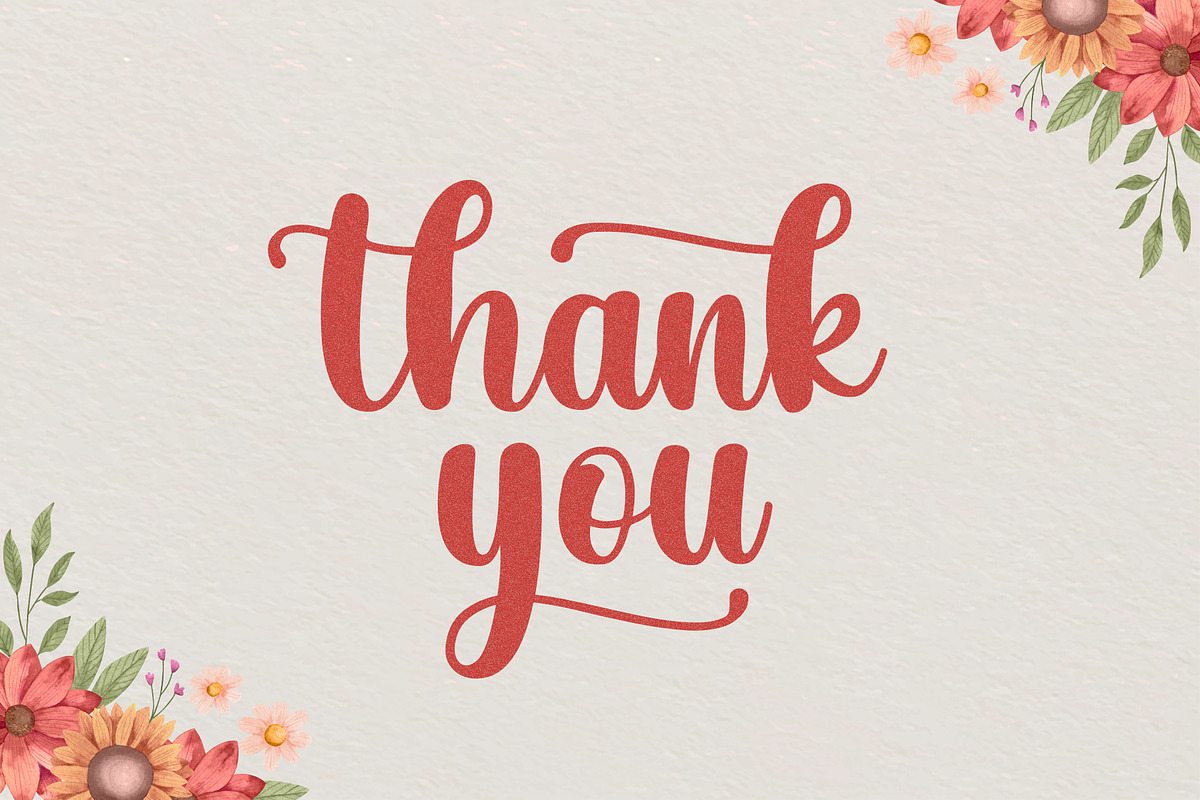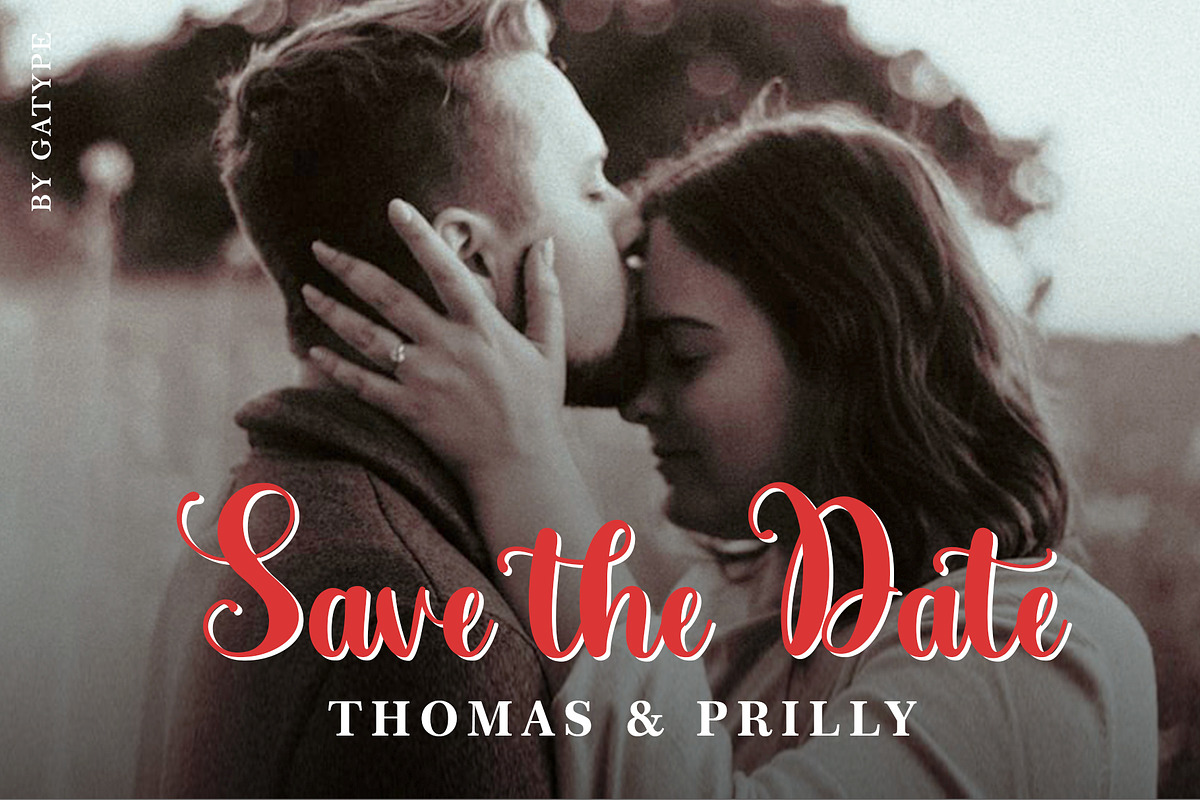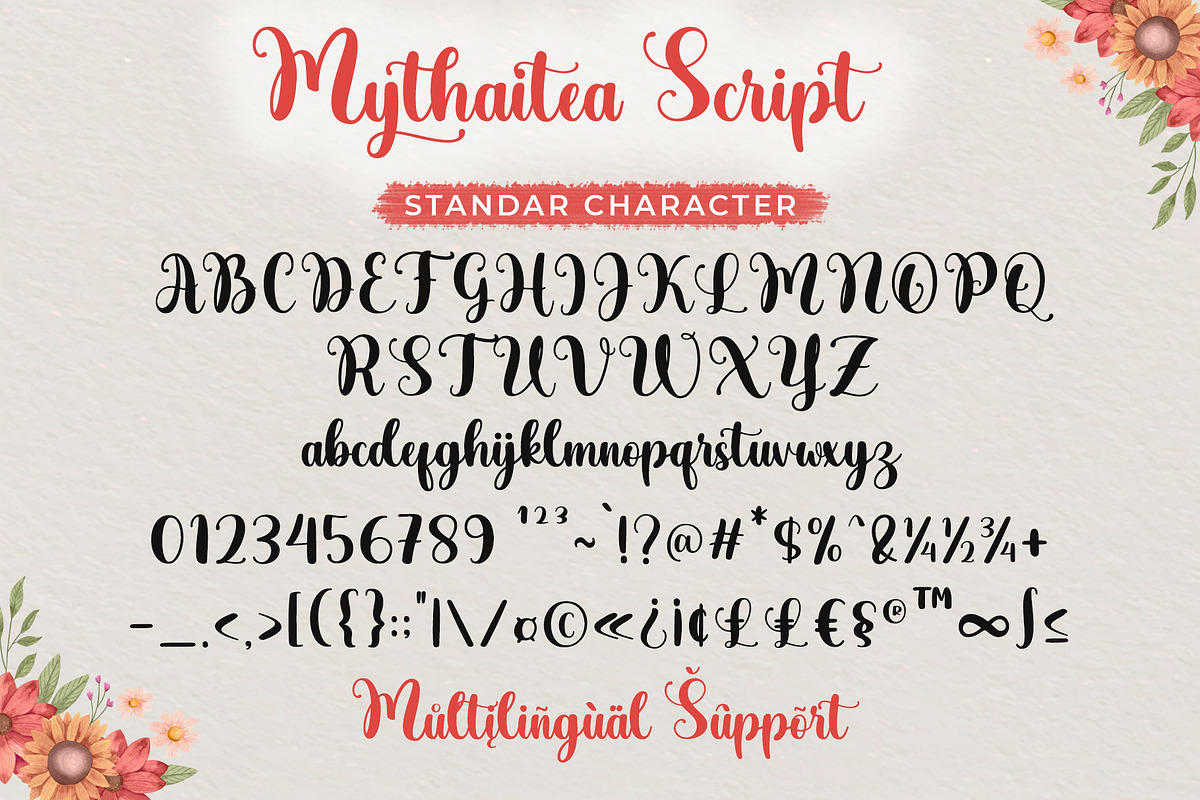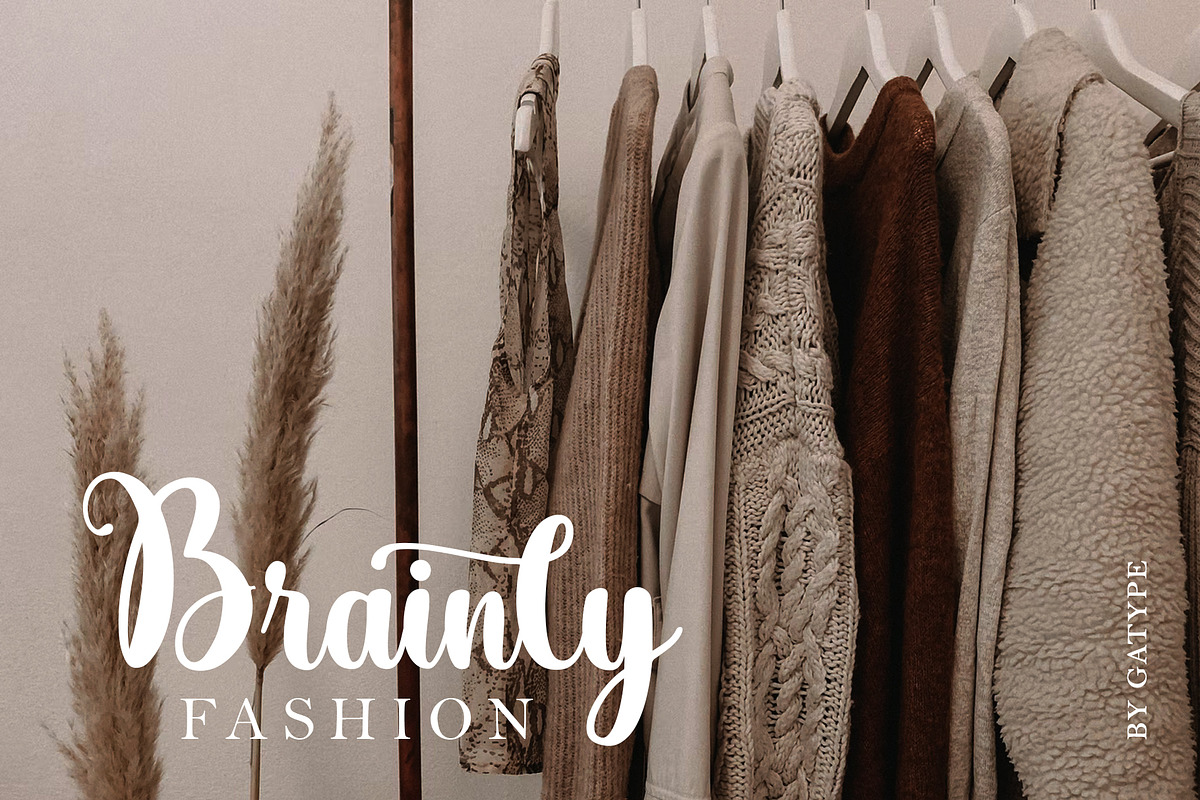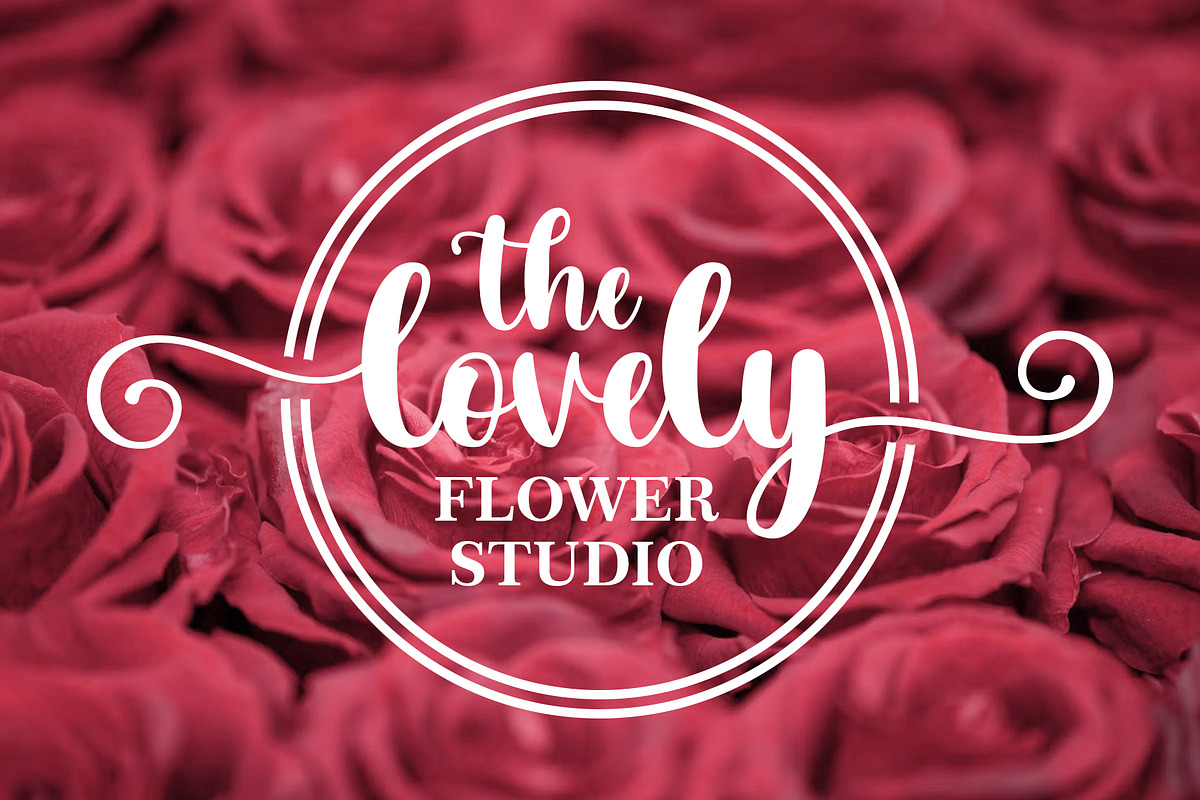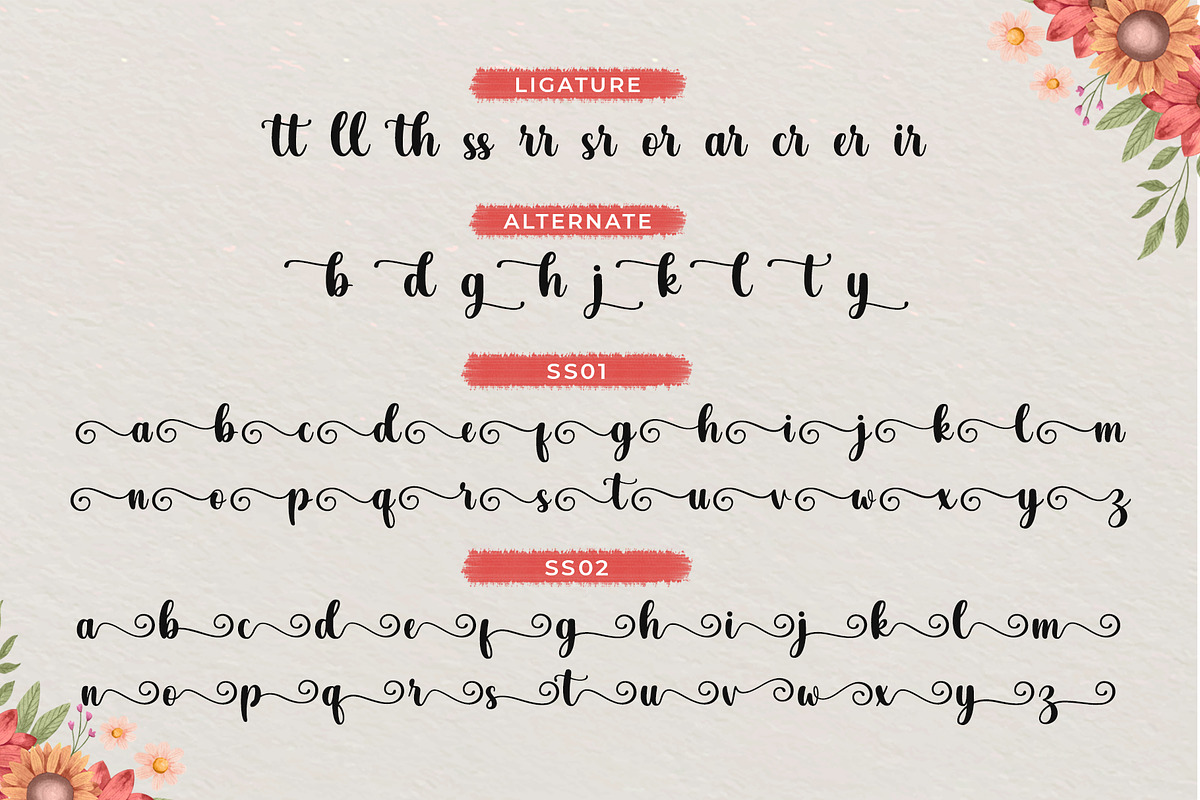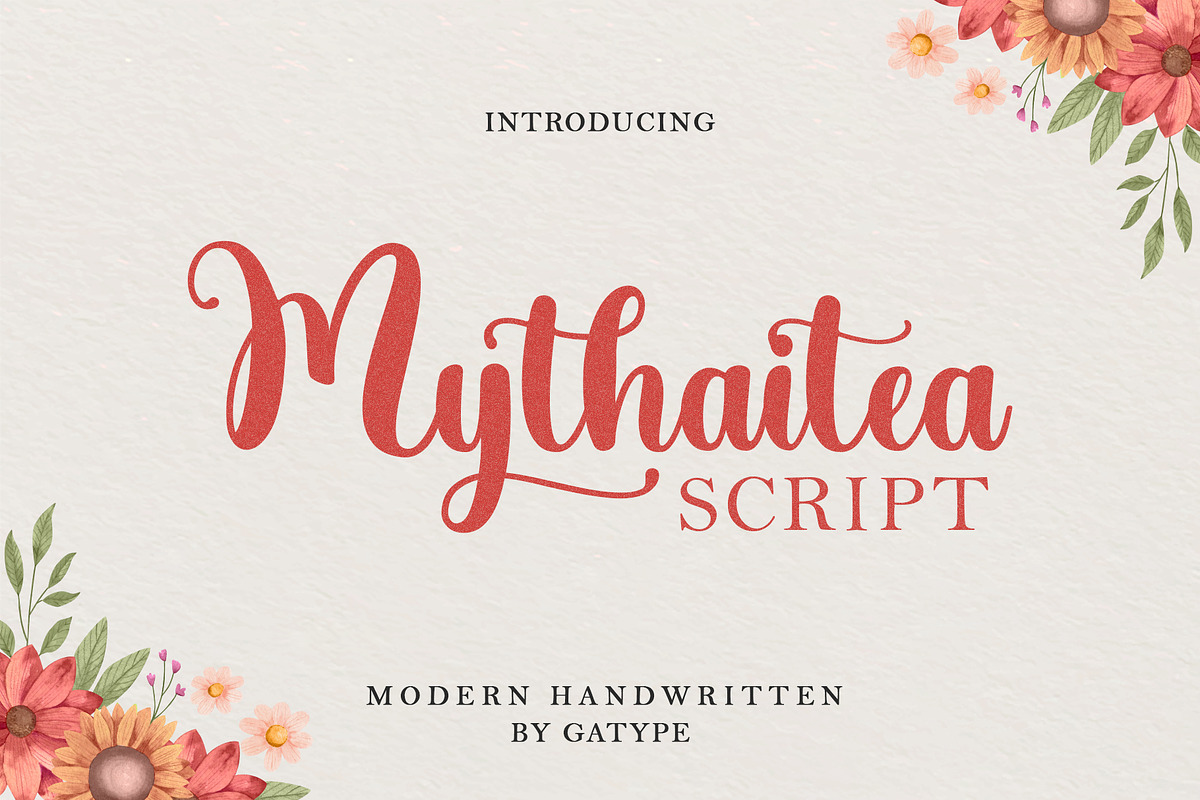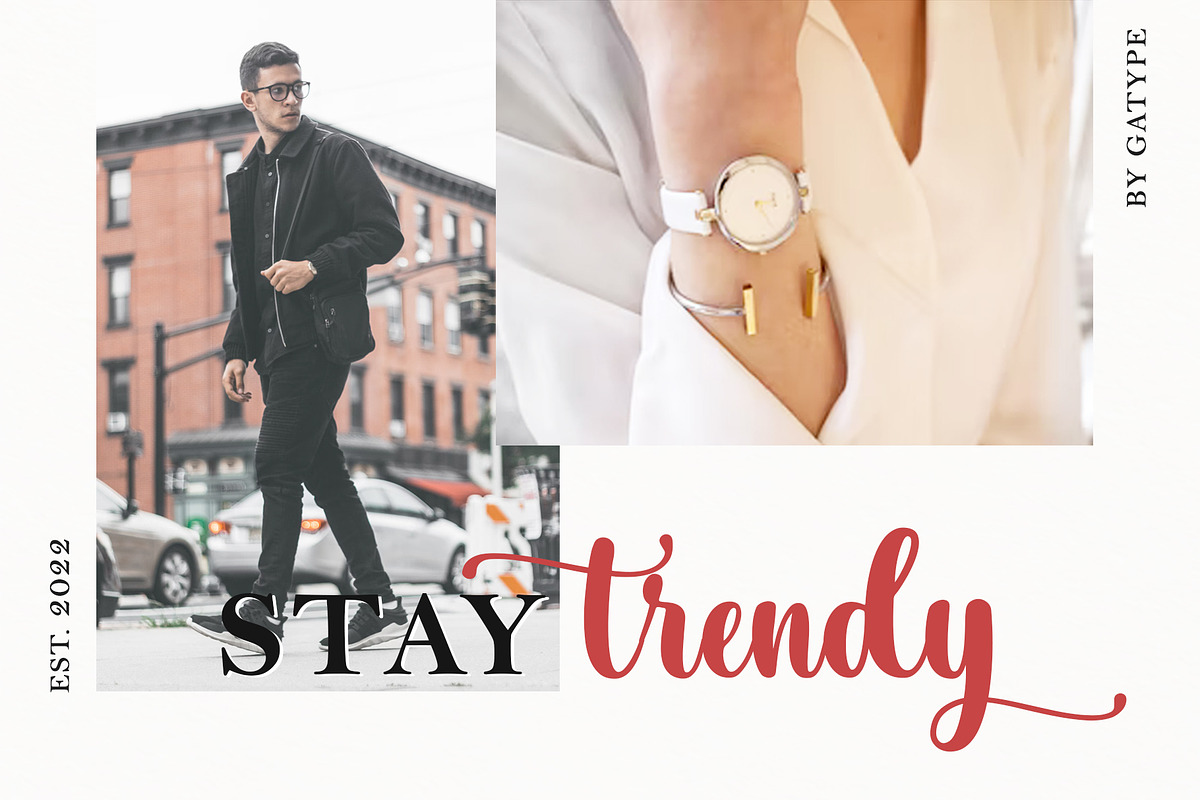
Script Mythaitea
Script Mythaitea is a modern smooth coarse font, we designed this font as much as possible to be used in all design needs, we hope this font can be used widely. This font is used for various purposes. such as logos, product packaging, wedding invitations, branding, headlines, signage, labels, signatures, book covers, posters, quotes and others.
Mythaitea Script features OpenType style alternatives, binders, and International support for most of the included Western Languages. To enable the OpenType Stylistic alternative, you need a program that supports OpenType features such as Adobe Illustrator CS, Adobe Indesign & CorelDraw X6-X7, Microsoft Word 2010 or a later version.